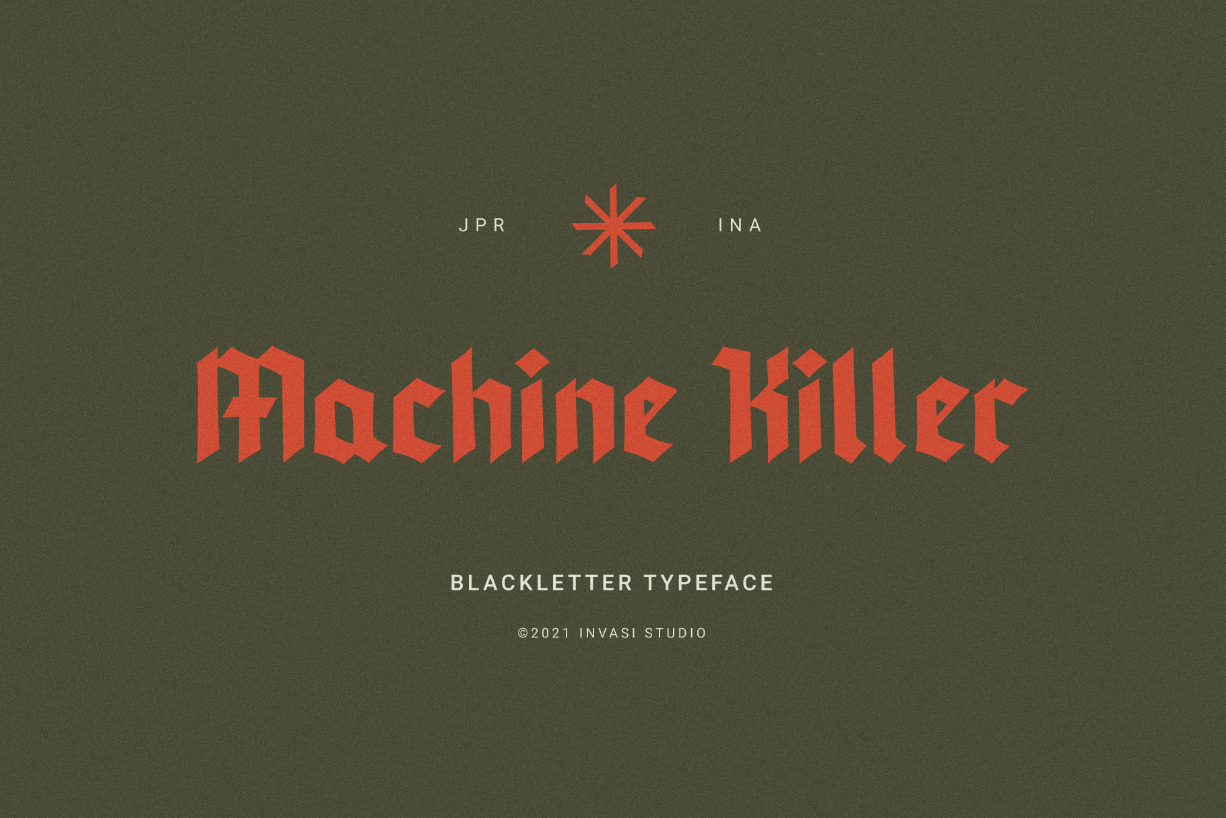
About Machine Killer Font
Machine Killer is a highly detailed blackletter font. No matter the topic, this font will be an incredible asset to your fonts’ library, as it has the potential to elevate any creation.